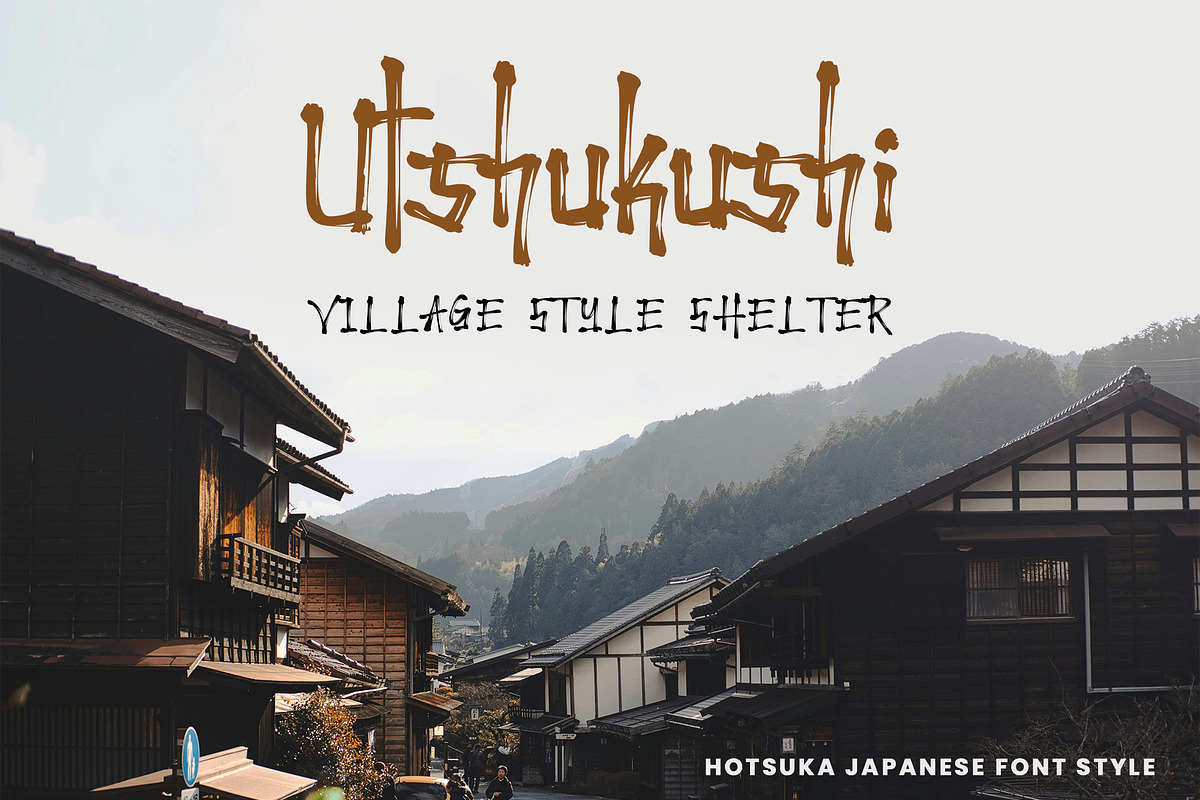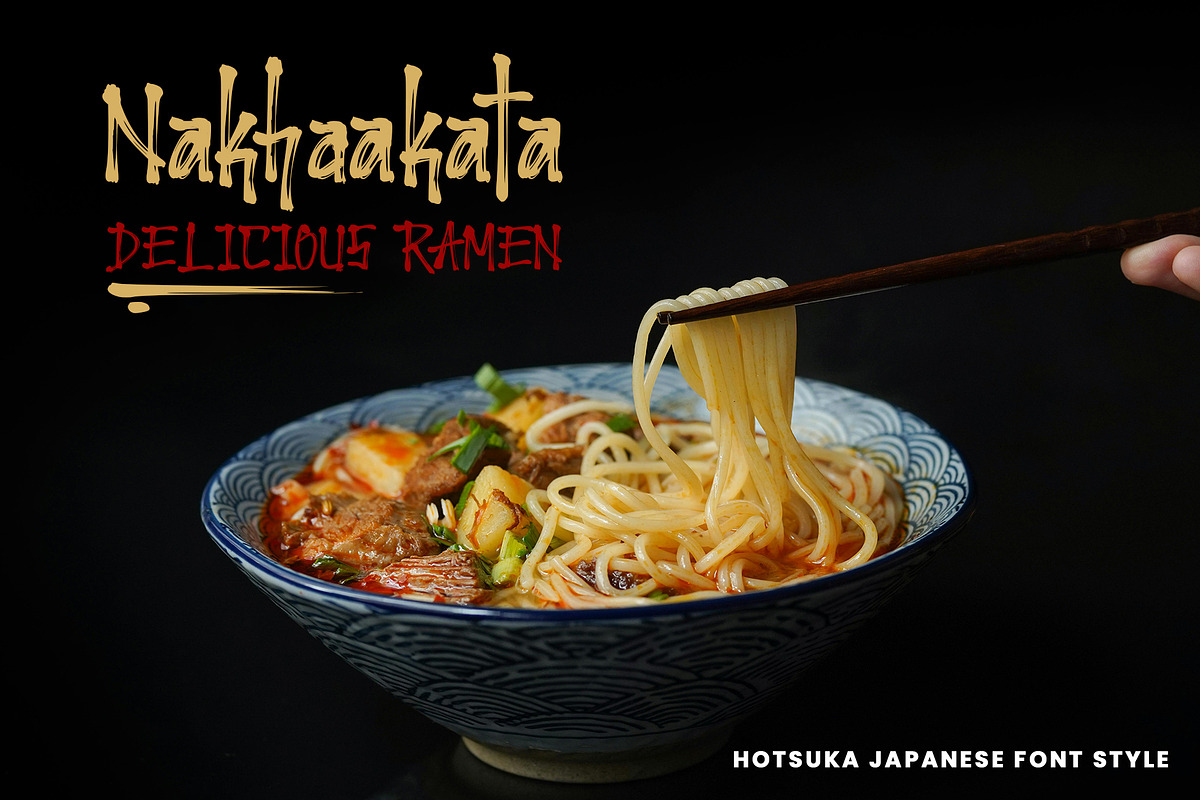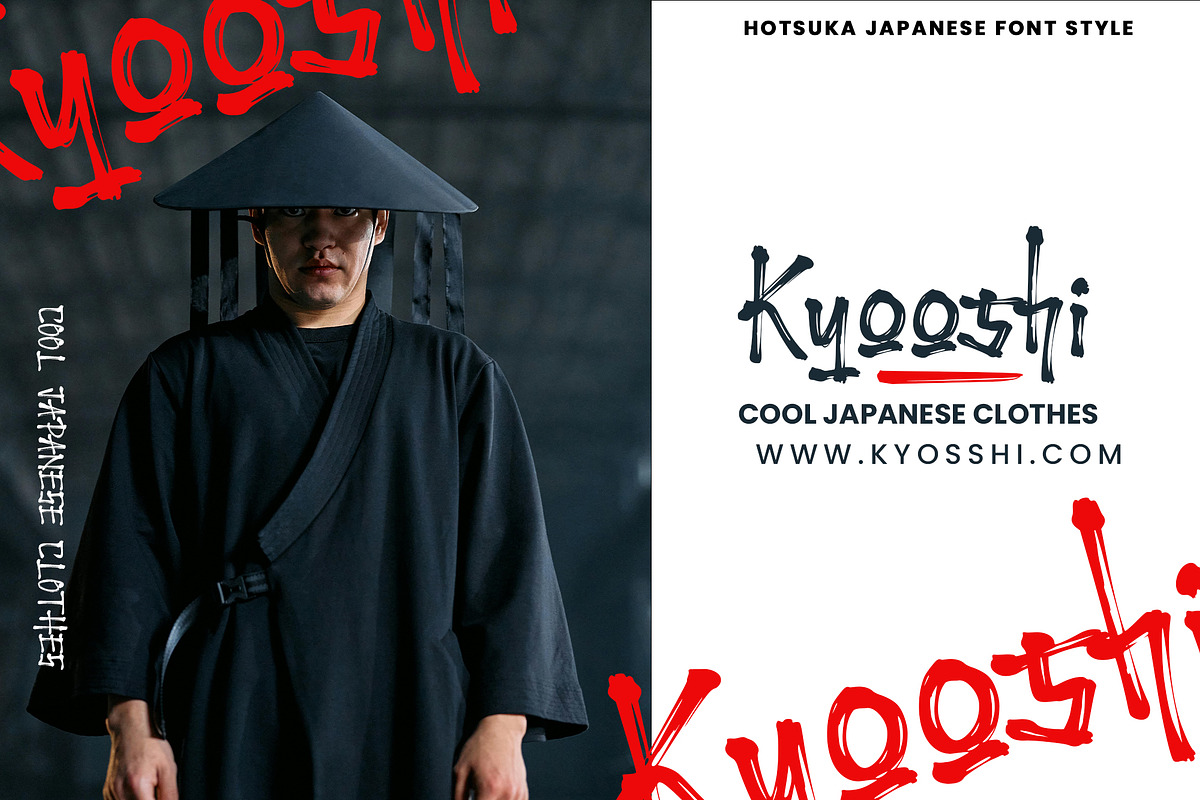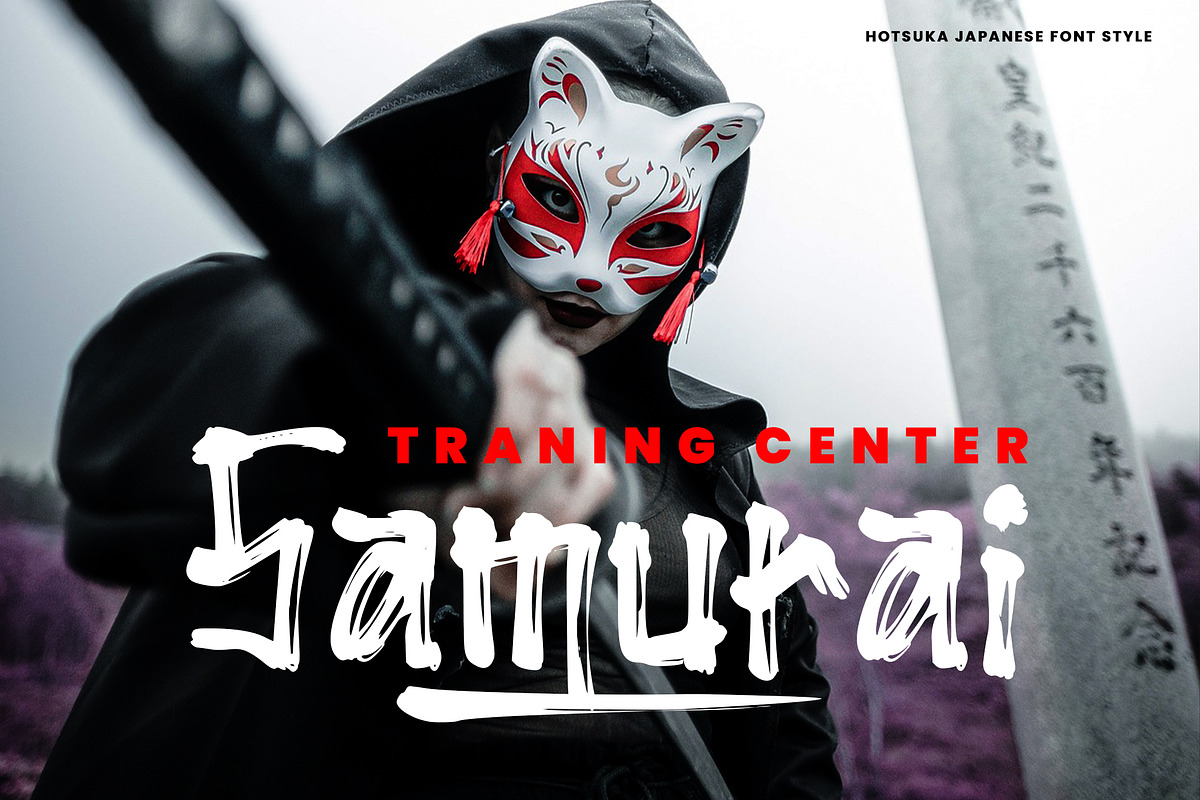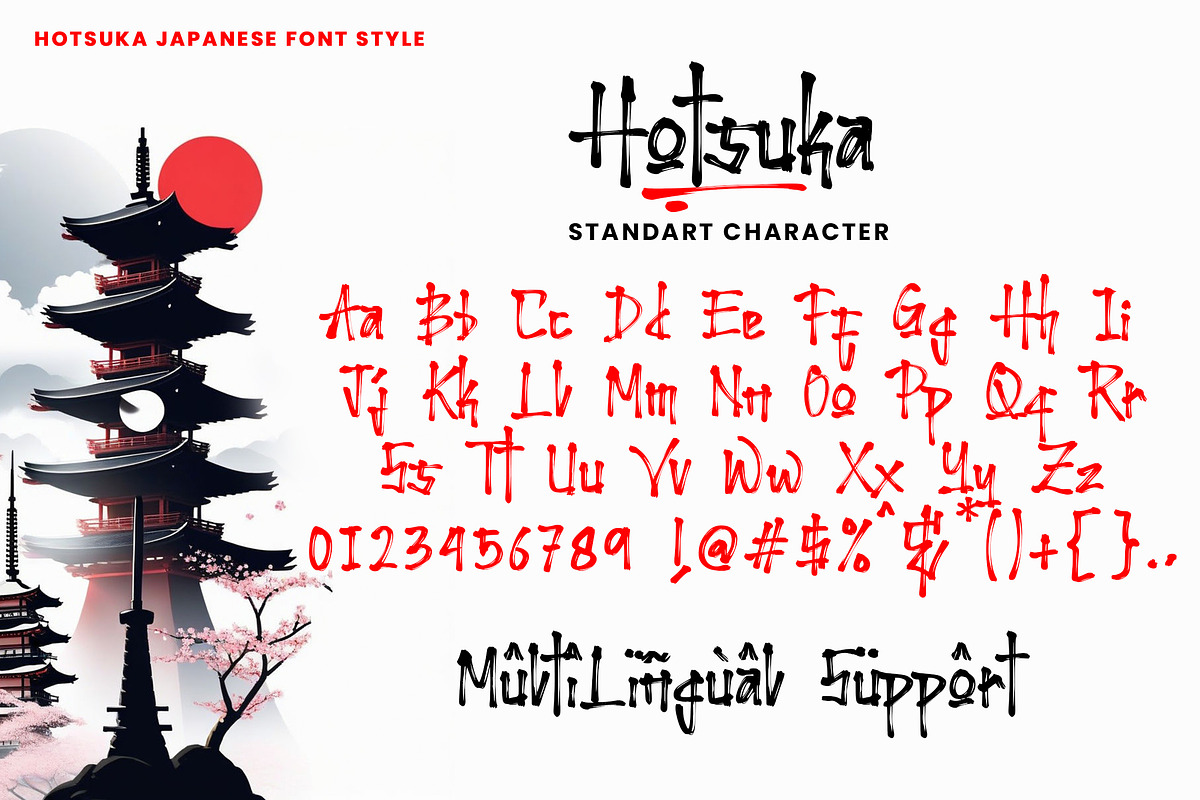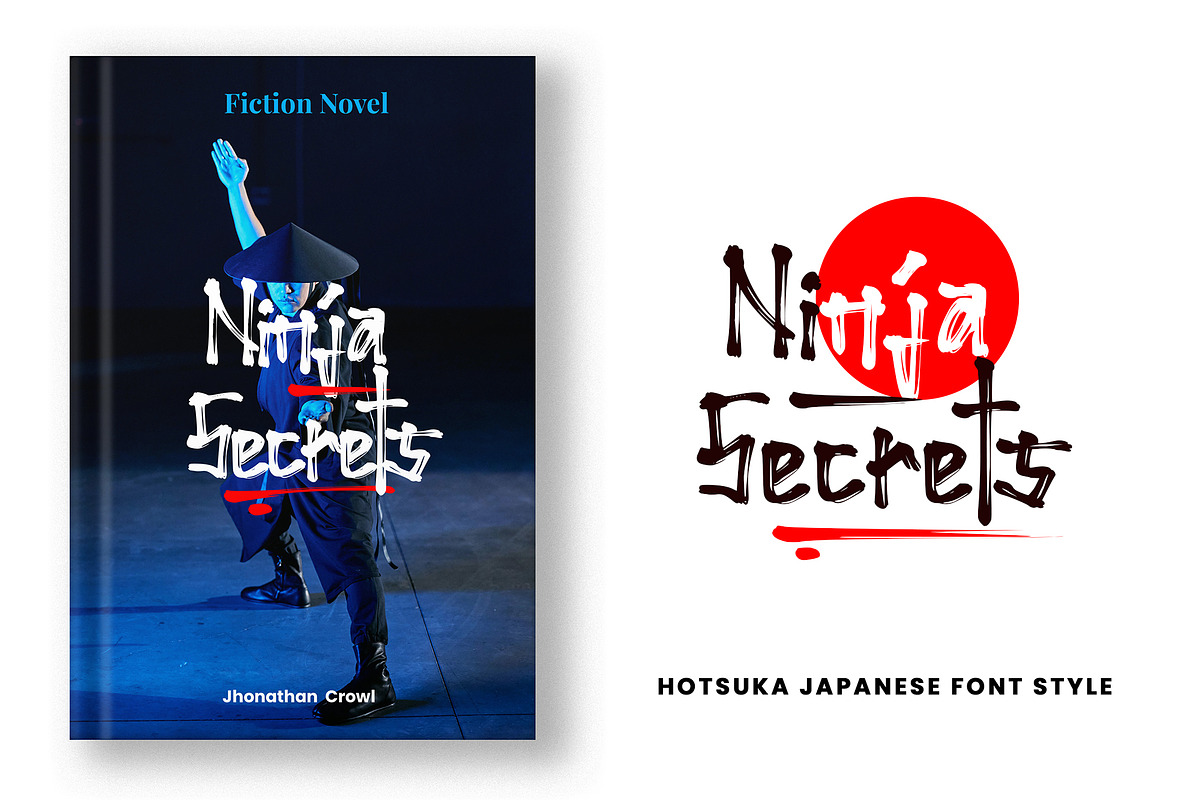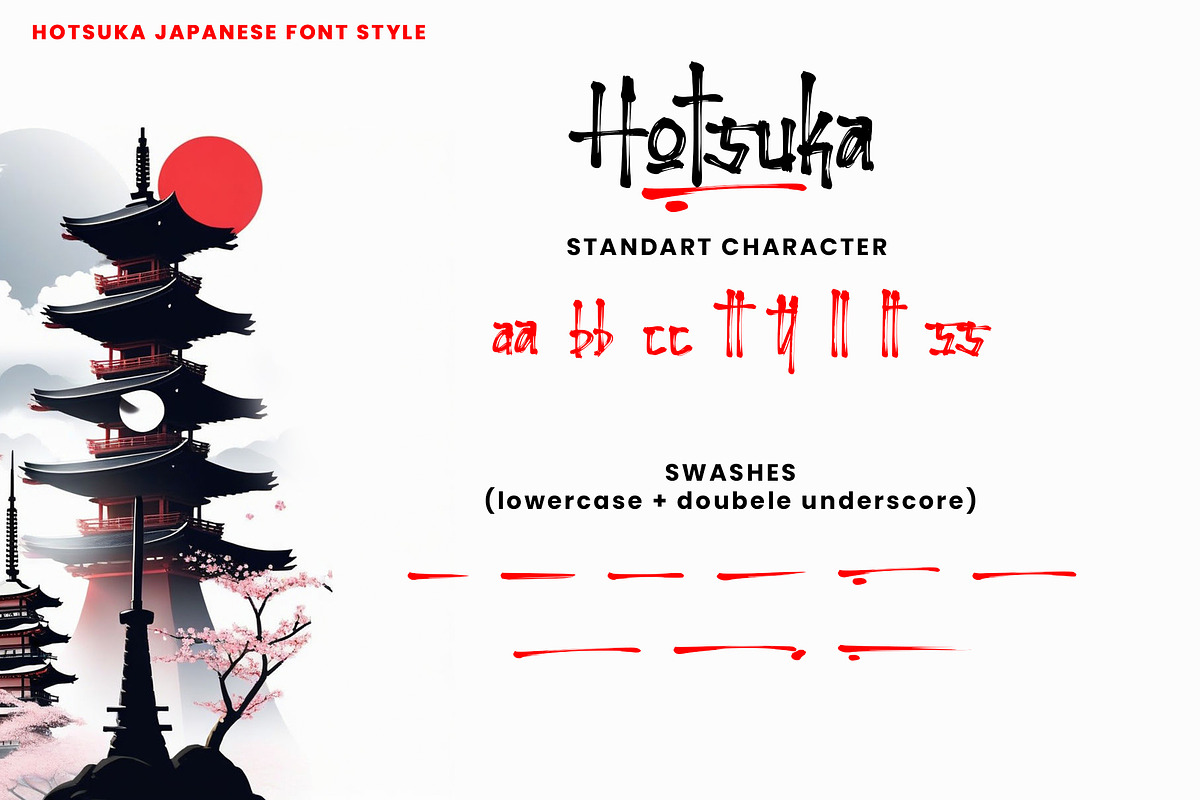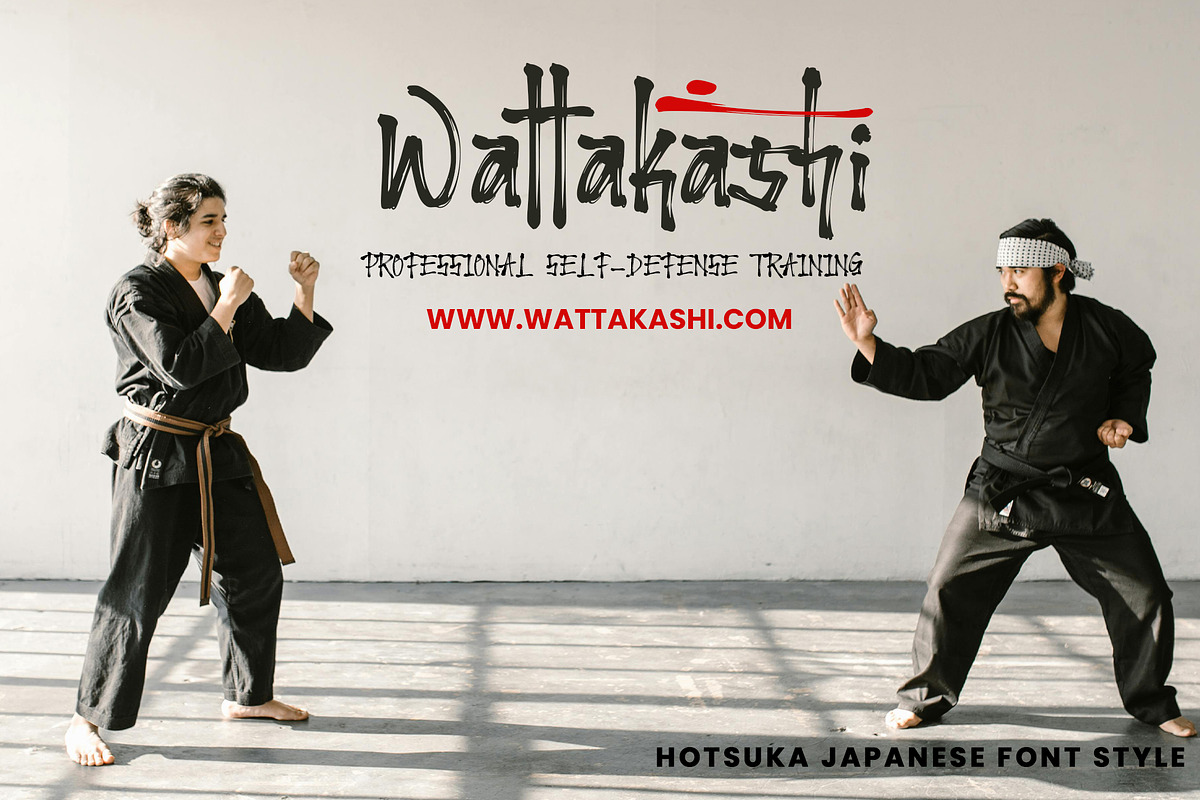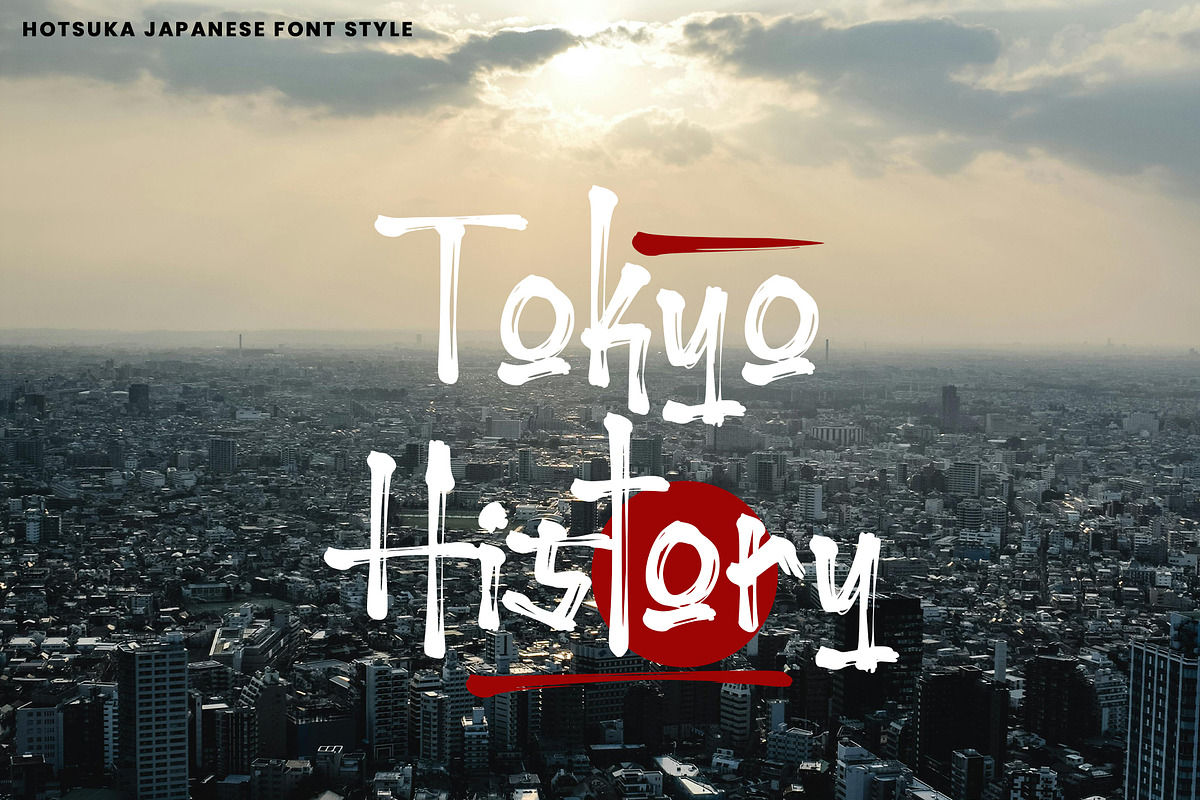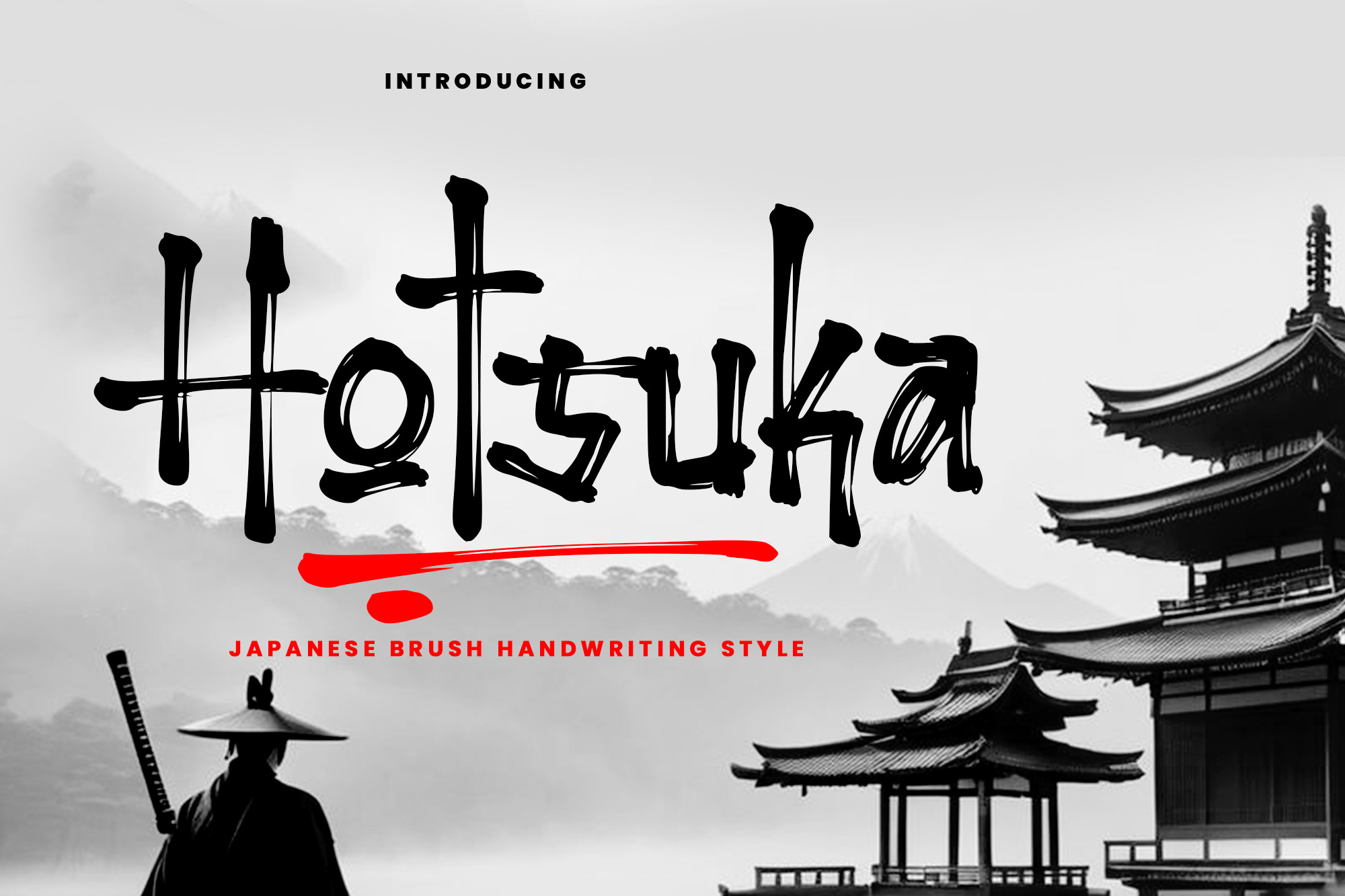
Hotsuka - Japanese Brush Font
Hotsuka is a captivating Japanese brush font full of character! This font is made with high artistry, Hotsuka blends the beauty of traditional calligraphy with a modern touch.
Elevate your project aesthetics with Hotsuka, a font that not only conveys your message but also creates an unforgettable visual experience. Get it now and add a touch of Japan to your designs!